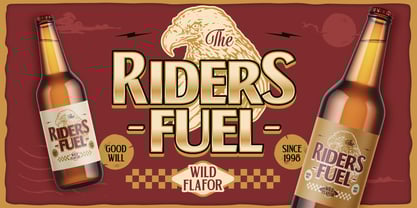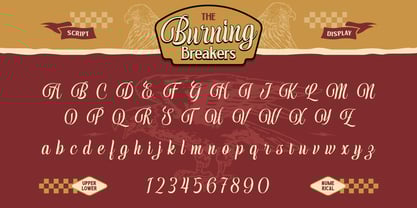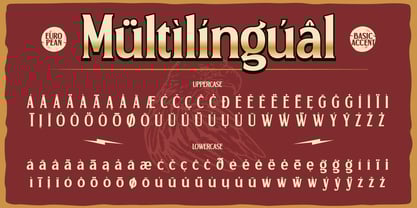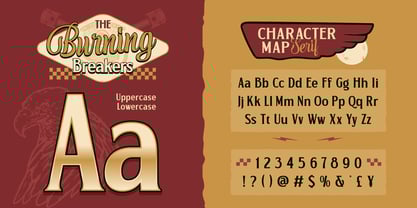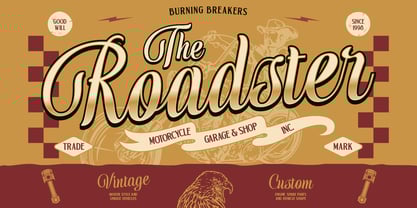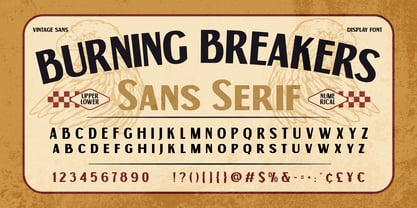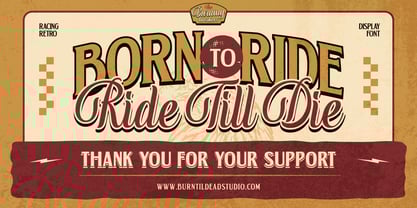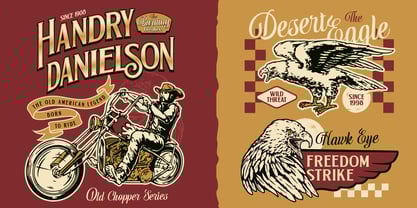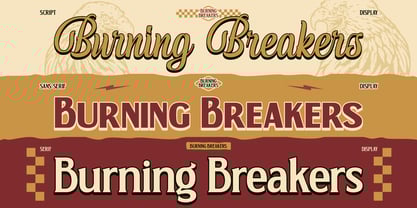
Burning Breakers
The Burning Breakers Font Family was designed by Eric Kurniawan and published by Burntilldead. Burning Breakers contains 3 styles and family package options.
Proudly present, Burning Breakers, a triple font combining serif, sans serif, and script styles. Inspired by American motorcycles, this font reflects the spirit of adventure and freedom with its vintage, classic, and masculine design. Burning Breakers is perfect for logos, apparel, posters, and more. This font supports multilingual characters, making it an excellent choice for global use.
Features:
• A - Z set (Uppercase & Lowercase)
• Number
• Punctuation
• Ligature
• Multilingual